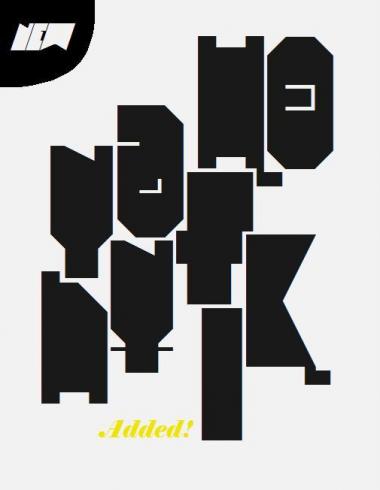
I love blocky counterless fonts, i have a big collection of them, and particularly those with a unique feel, like this one. I can't decide if the excessive width of M,W is too much or if it's a good idea. Maybe when you complete the set, it will appear in a more clear way.
I'm not sure about M and W too. Any suggestions?
Beautiful numbers and punctuation ! Keep it up!
Thanks! More glyphs still waiting...
Great! I see you've decided to add Kazakh :) but for a full kazakh language support, you still need to add Ә,Ү,Ұ,Һ. Thanks!
Impressive expansion even if some are a bit hard to grasp. Kudos for the beautiful "OE" we're needing so much in french!